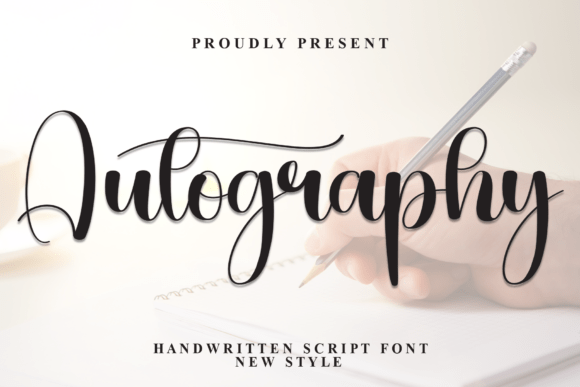
The Autography Font: Elevating Designs with Elegance and Charm
I’ll never forget the time I was working on a branding project for a luxury wedding planner. The client wanted a font that exuded sophistication, yet had a personal touch. After hours of scouring through font libraries, I stumbled upon Autography – a stylish handwritten script font that instantly caught my eye. Its flowing strokes and organic curves brought a sense of warmth and refinement that perfectly captured the essence of the brand. In this article, I’ll share my experience with Autography, its features, and how to make the most of it in your designs.
An Honest Review of Autography
• ✨ Elegant and modern design that adds a touch of sophistication to any project
• ✅ Flowing strokes and organic curves that bring warmth and personality to the text
• 💫 Highly versatile and suitable for various design applications, including branding, invitations, and social media
• 🎨 Beautiful OpenType features, glyphs, and stylistic alternates that offer creative flexibility
While Autography is an exceptional font, there are a few minor quirks to be aware of:
• 🤔 Some users may find the font’s script style too ornate for certain projects, such as body text or captions.
• ⚠️ As with many script fonts, Autography may not be the best choice for very small font sizes or low-resolution displays.
4. Experiment with OpenType features, such as swashes and stylistic alternates, to add creative flair to your text.
The Designer Inspiration Behind Autography
Autography’s design story begins with a passion for elegant handwriting and a desire to create a font that would bring warmth and sophistication to any project. The designer, inspired by the flowing scripts of the past, aimed to craft a modern typeface that would be both refined and approachable. Through careful attention to detail and a commitment to quality, Autography was born – a font that effortlessly blends style and charm.
Font Name Autography Font
Author Roronoa zoro.S.P.D
Q: What is Autography’s personality?
A: Autography is an elegant and modern handwritten script font with a refined, sophisticated personality.
Q: Does Autography support OpenType features?
A: Yes, Autography offers a range of OpenType features, including swashes, stylistic alternates, and ligatures.
Q: Can I use Autography for body text?
A: While Autography is primarily designed for display text, it can be used for body text in certain contexts. However, its script style may not be suitable for very long blocks of text or small font sizes.